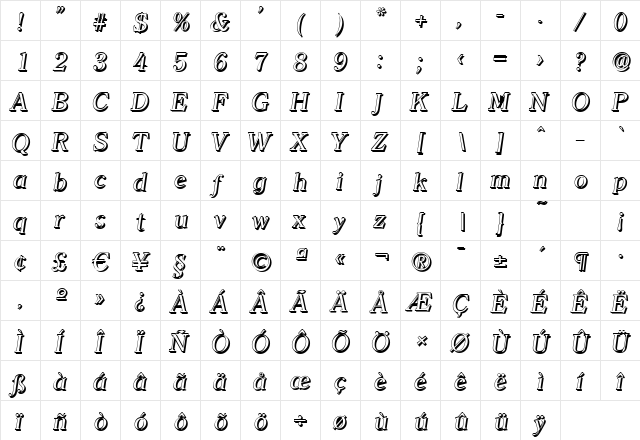
ChristianBeckerShadow Italic
Design Context for ChristianBeckerShadow Typeface
ChristianBeckerShadow is built around its visual character rather than neutral utility — its distinctive forms are designed to make an impression at display sizes. The dynamic lean of this cut emphasises speed and emphasis in any layout.
Font Pairing: Pair with a clean neutral sans-serif for body copy to let ChristianBeckerShadow's character lead without overwhelming the composition.
Pro Tip: Use ChristianBeckerShadow exclusively at display sizes — it was designed to be seen, not read at length. Let a neutral companion handle body copy.